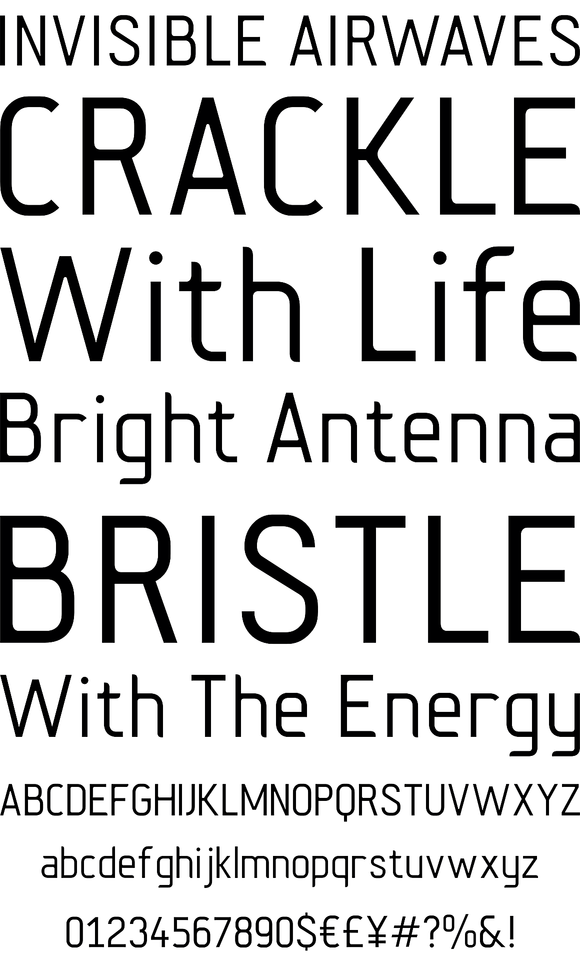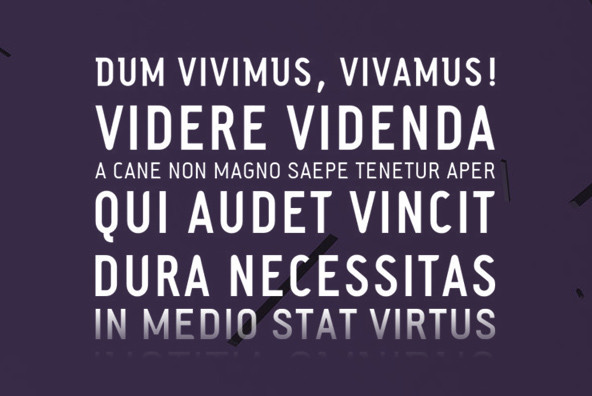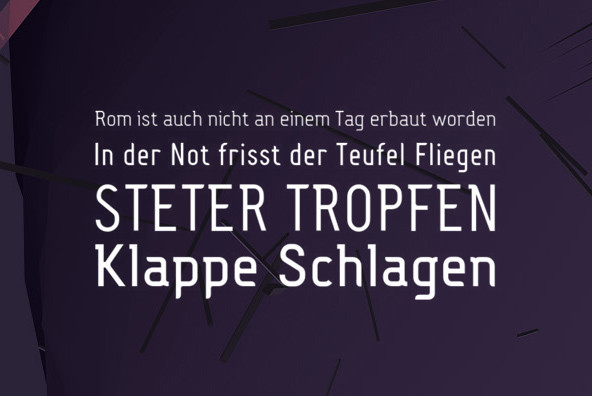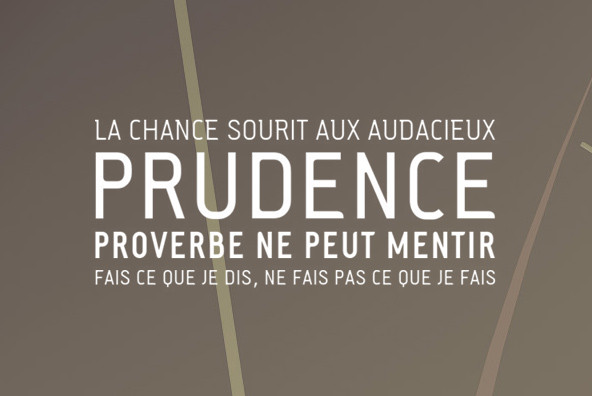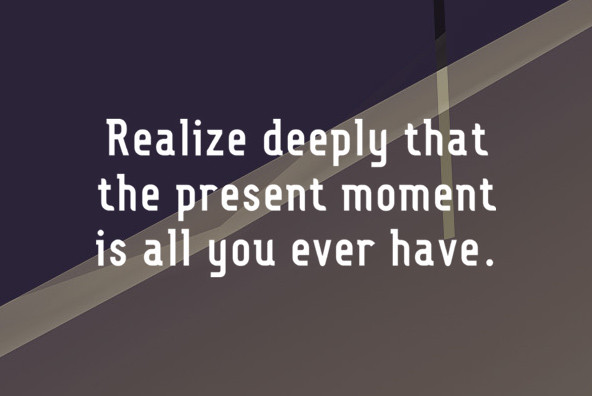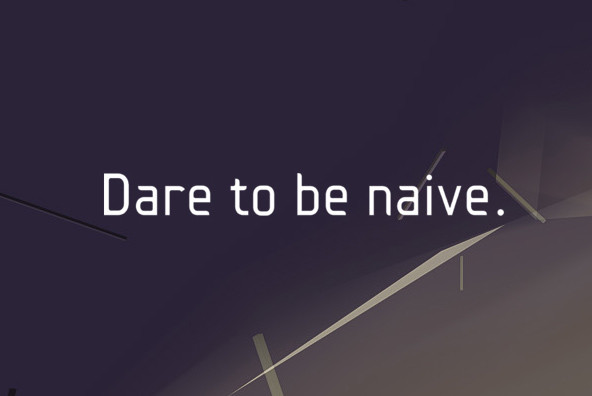
The Fou typeface family was designed as an alternative to Trade Gothic condensed bold. During the design process of a normally wide font variant a system developed that responds to white space and changing proportions. Thus, round transitions become rectangular and vice versa, space is made and space is taken away. This system and the associated changes are continued on a model with semi-serifs. Fou can also be used as an alternative to Din or the wider Q-Type, but in comparison offers more room for emphasis with its italics, expert sets and numerous special characters.